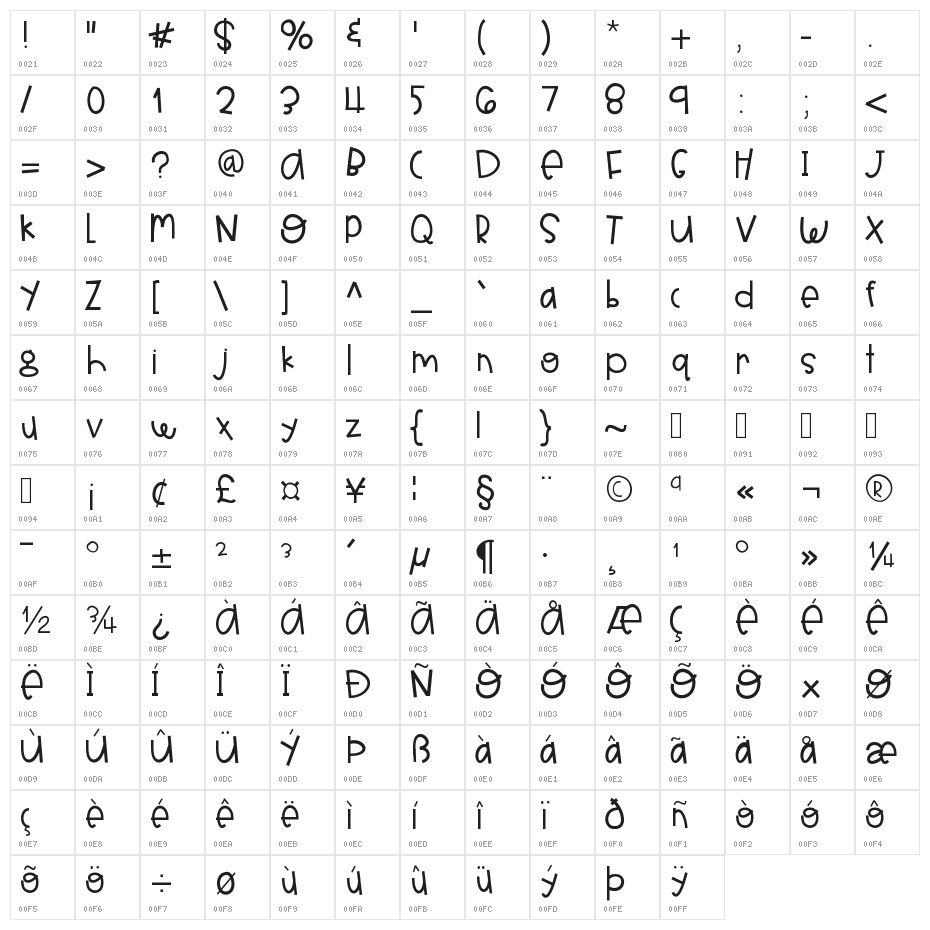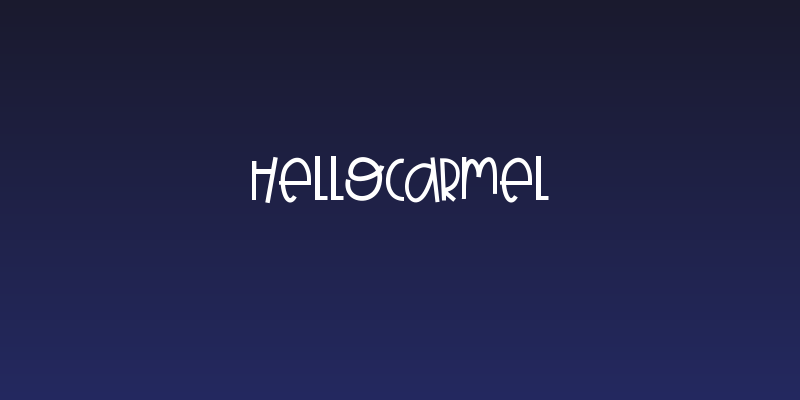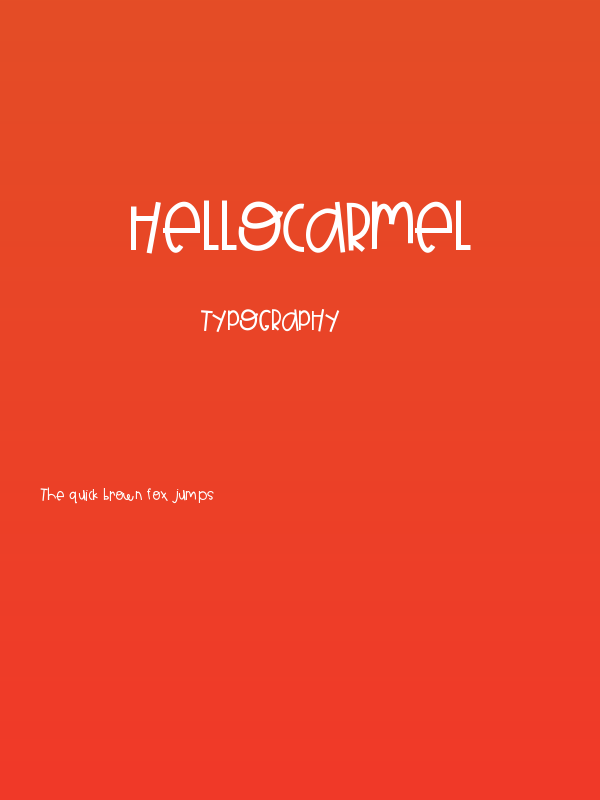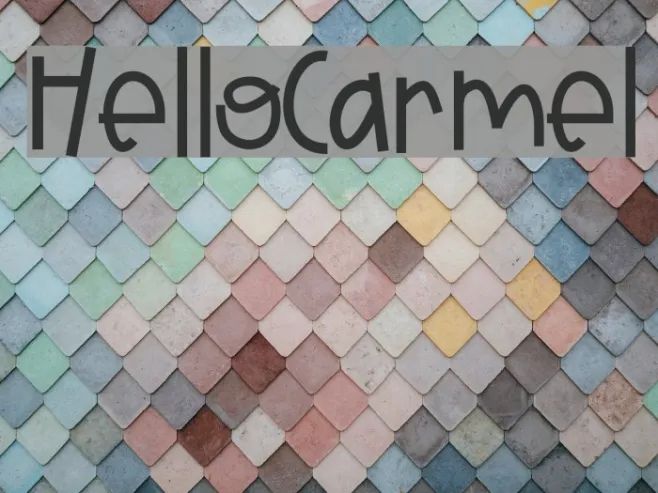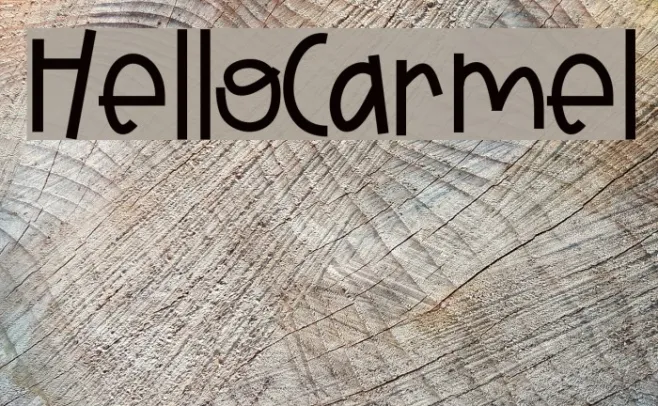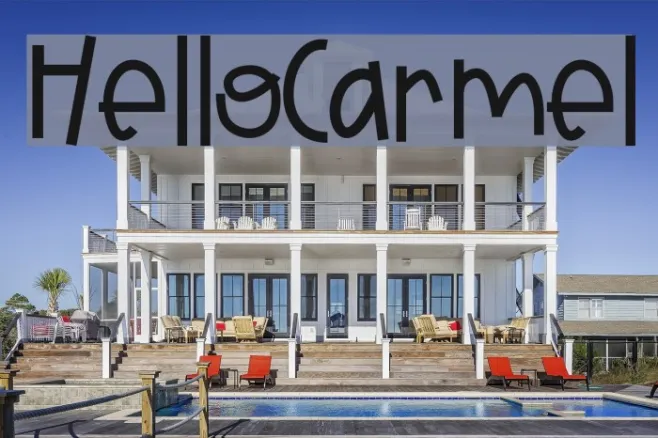
HelloCarmel Font
HelloCarmel Description
This playful and whimsical font features a unique, hand-drawn style with irregular curves and varying stroke thickness. The characters are bold and slightly exaggerated, giving them a lively and energetic appearance. The uppercase and lowercase letters maintain a consistent style, with rounded edges and a slightly tilted orientation that adds to the casual feel. Numbers and special characters are designed to match the overall aesthetic, making this font versatile for creative projects. Its informal and friendly look makes it suitable for a variety of uses.
| Proposed Projects | Ideal for children's books, playful branding, greeting cards, and creative posters. |